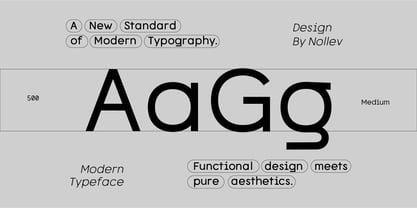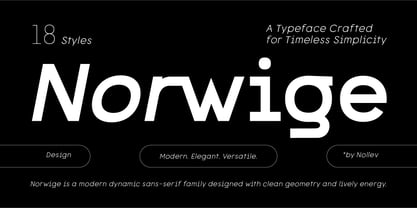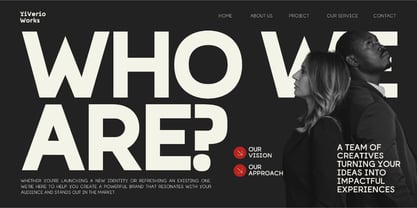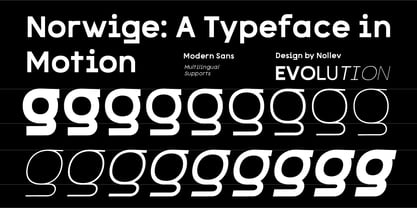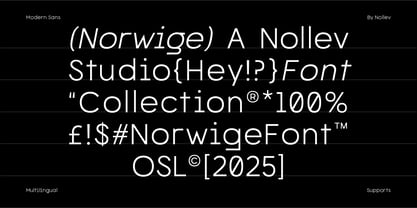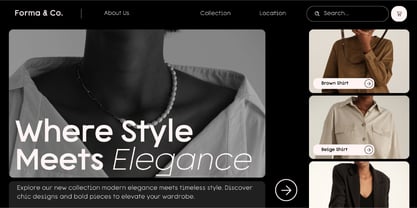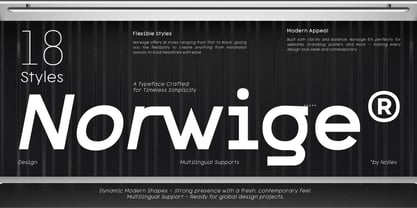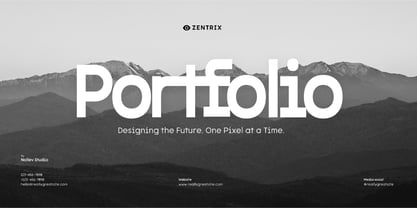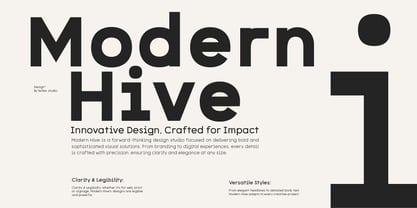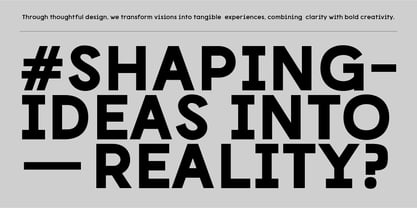
Norwige
by Nollev
The Norwige Font Family was designed by Akhmad Hidayat and published by Nollev. Norwige contains 18 styles and family package options.
Norwige is a dynamic modern sans-serif typeface, crafted with clean geometry and lively energy. Designed for clarity and impact, Norwige balances contemporary aesthetics with strong functional versatility, making it ideal for branding, editorial layouts, websites, packaging, and digital products.
The family includes 18 styles — from Thin to Black, each with matching Italics — providing a full range of expression from elegant minimalism to bold statements. Norwige’s carefully structured letterforms maintain a sense of motion and vitality without sacrificing readability, both in print and on screen.
Norwige supports multiple languages, including Western, Central, and Eastern European character sets, and is fully optimized for professional design software. Whether you're crafting a dynamic brand identity or building a clean digital interface, Norwige brings precision, energy, and modern sophistication to every project.